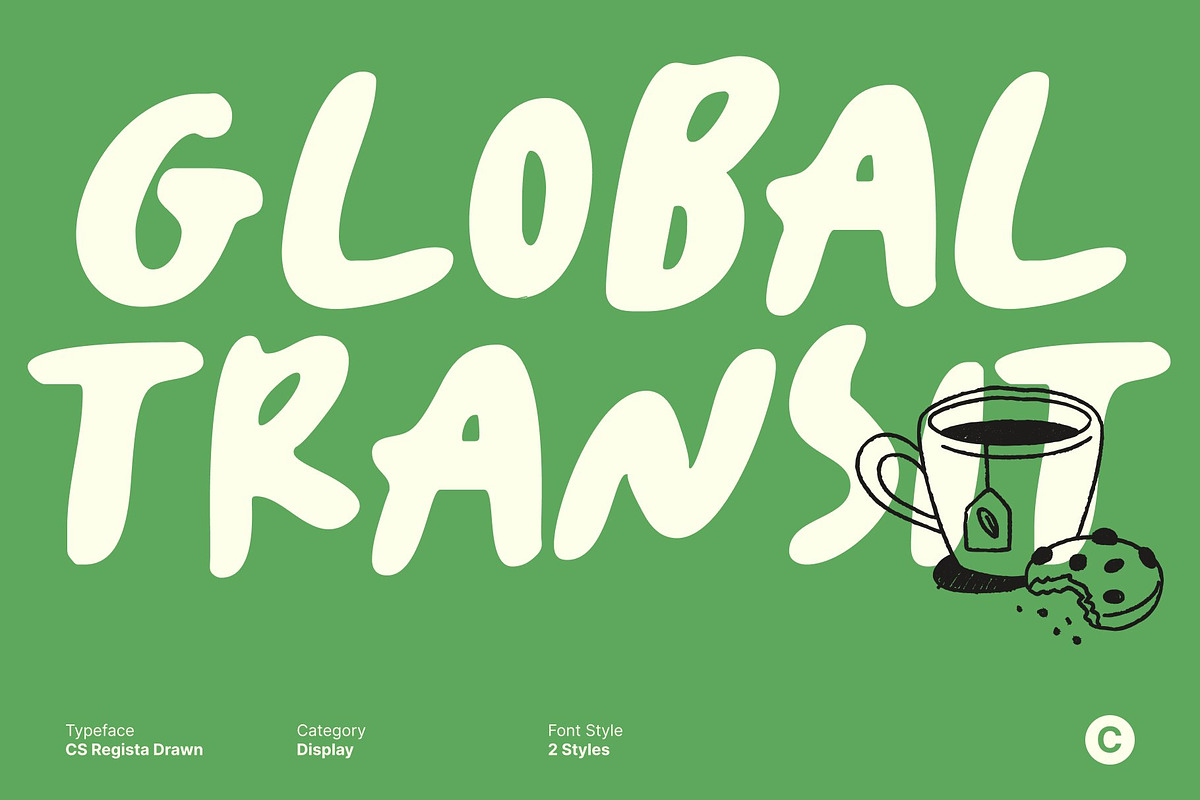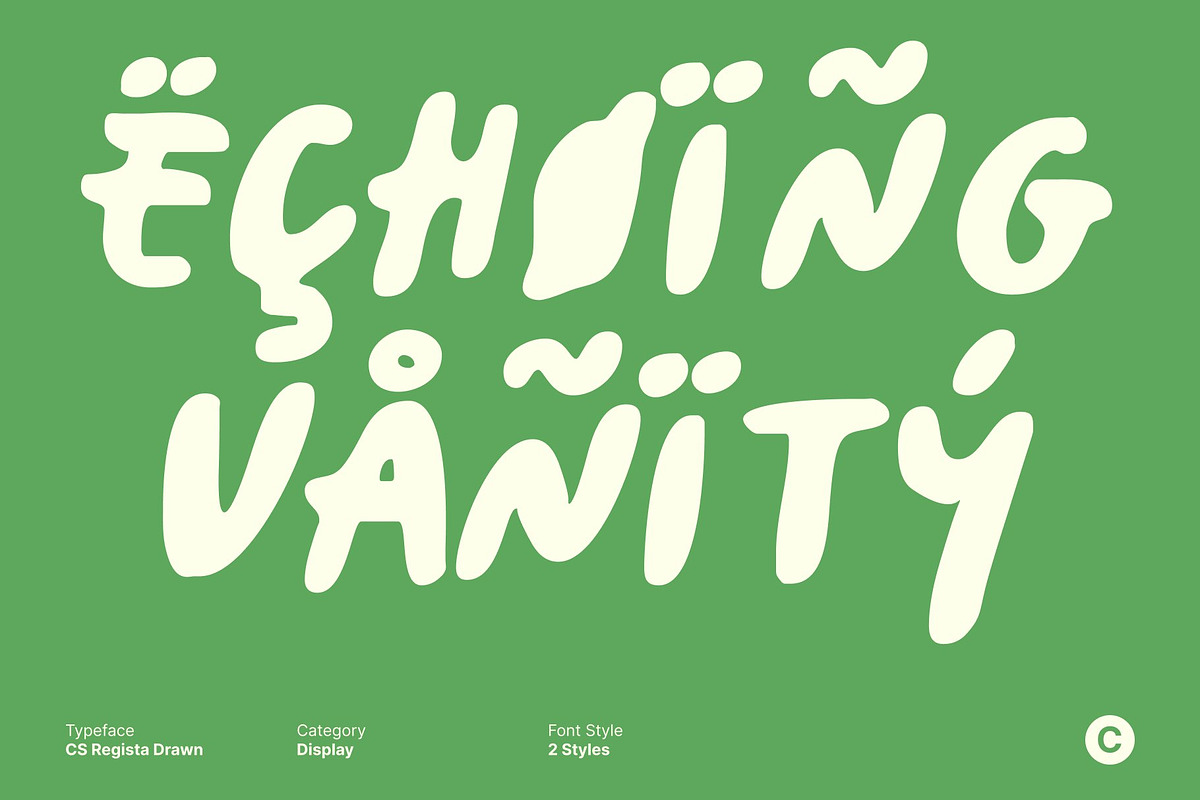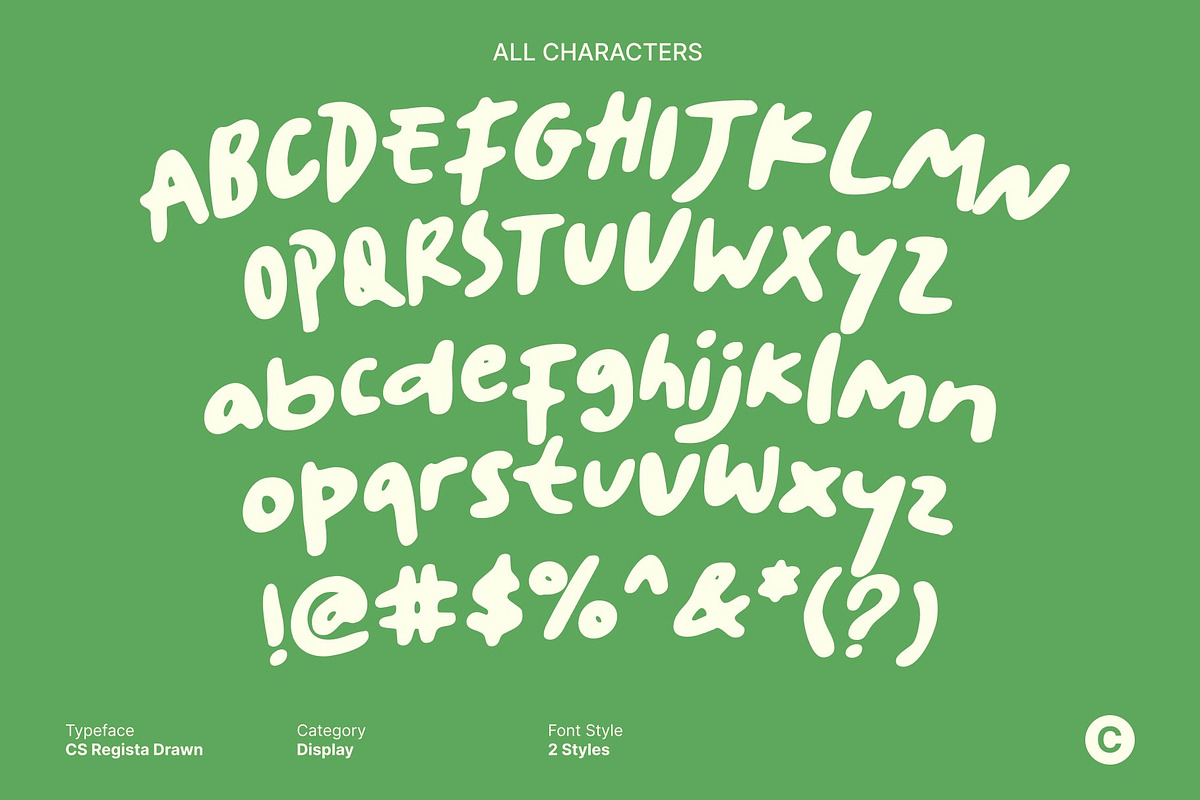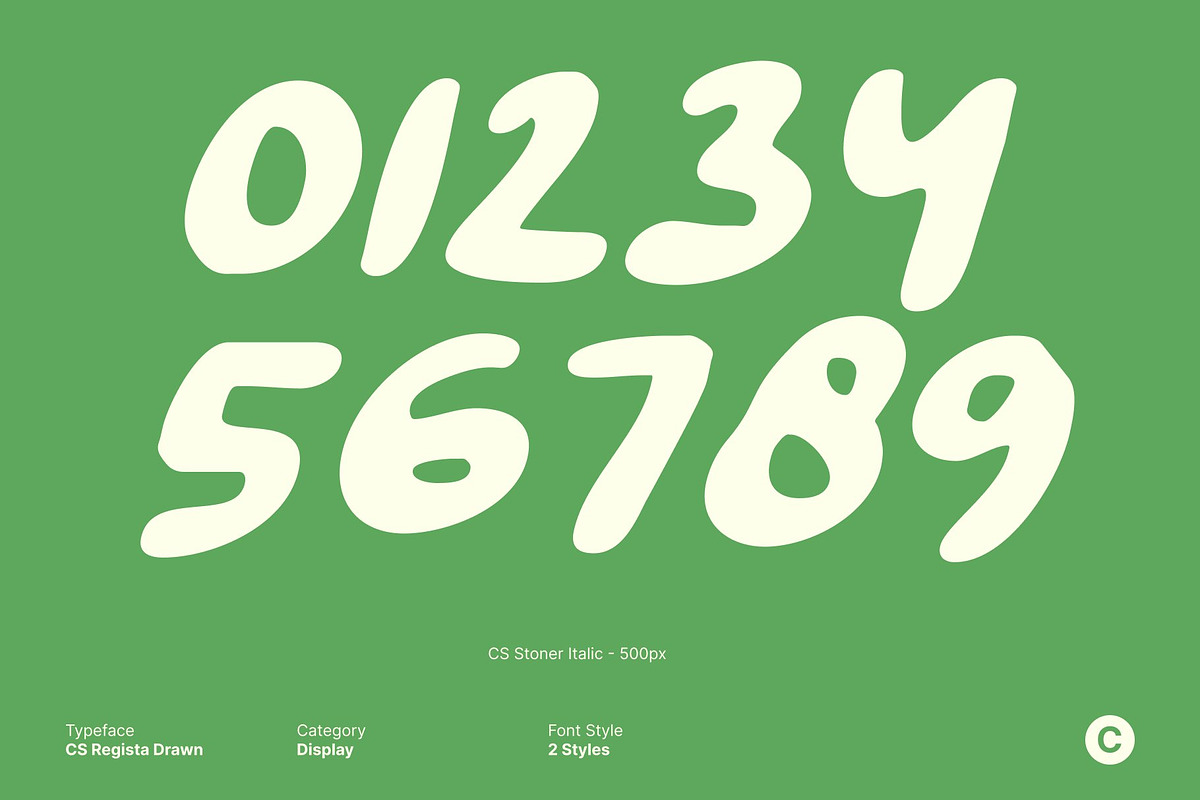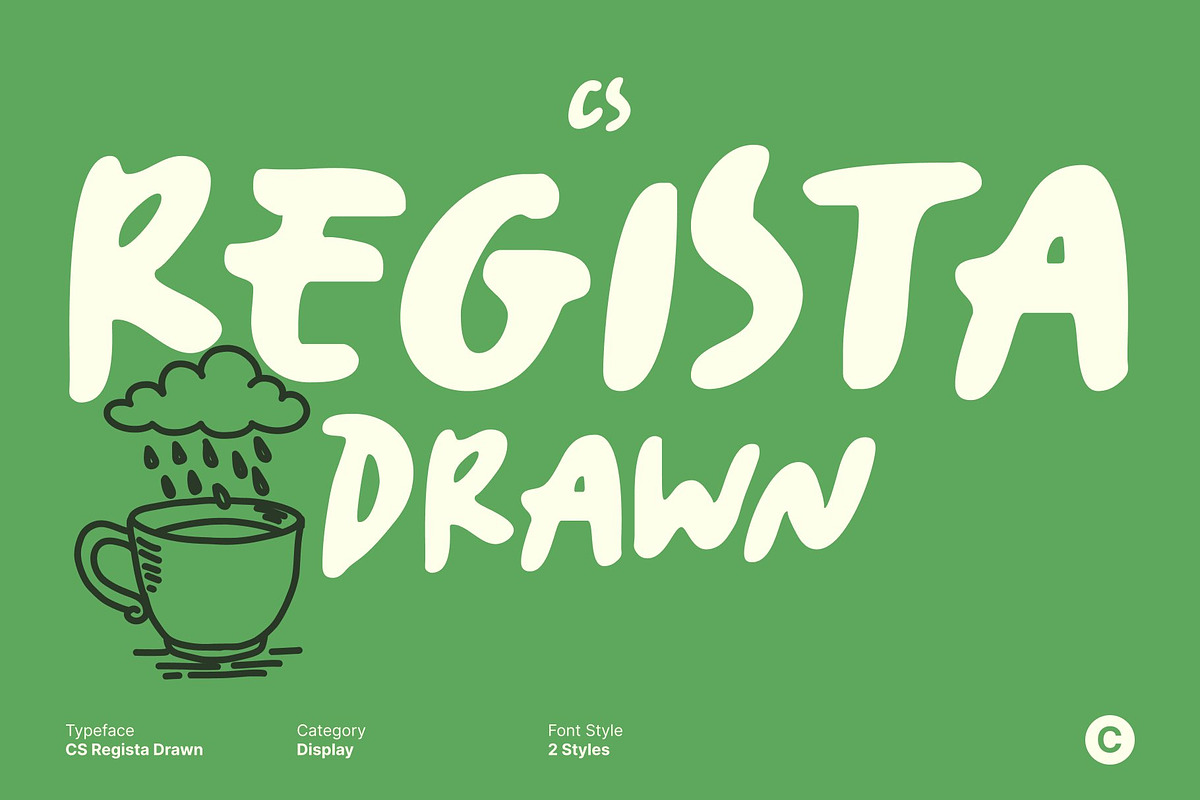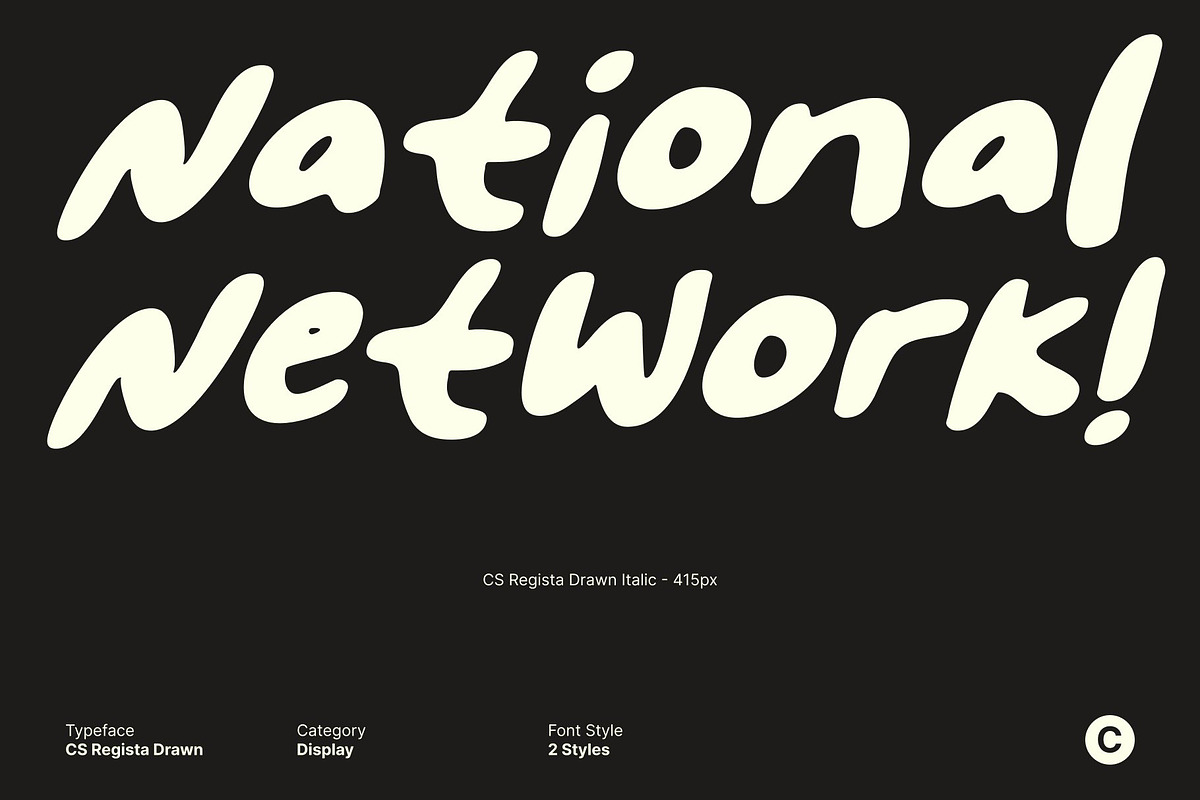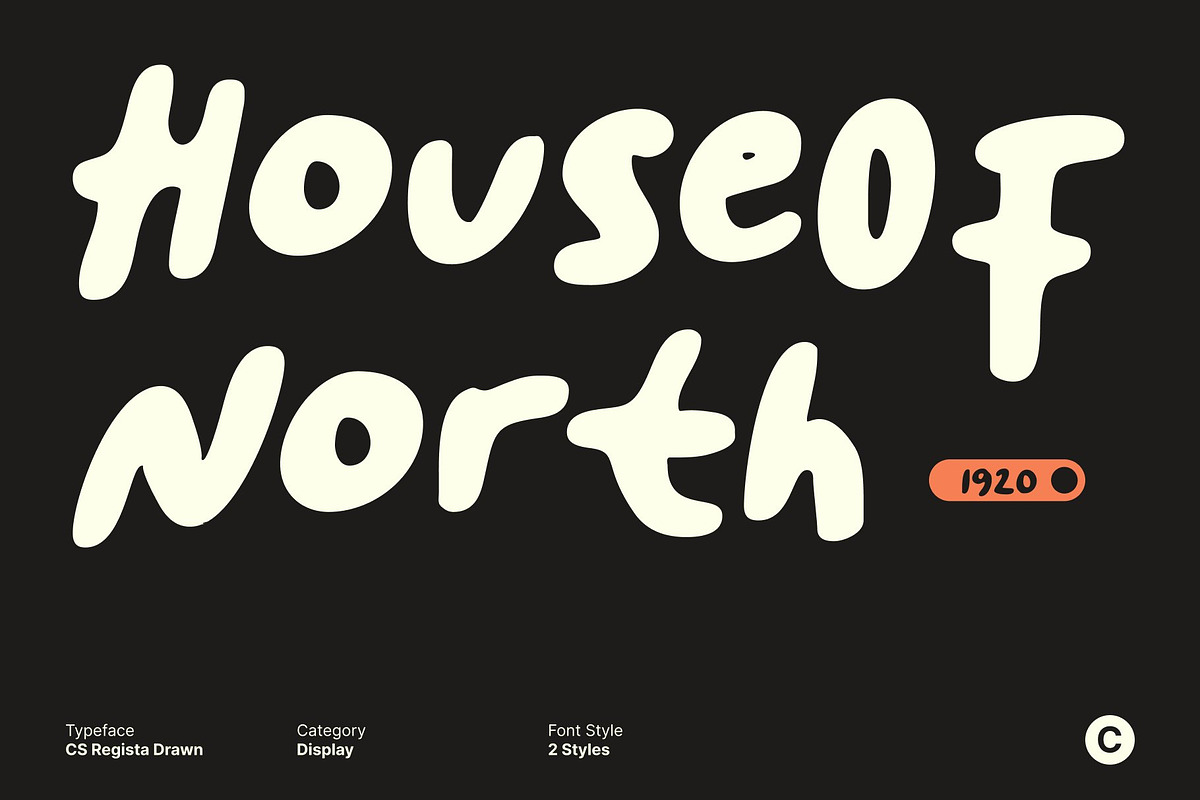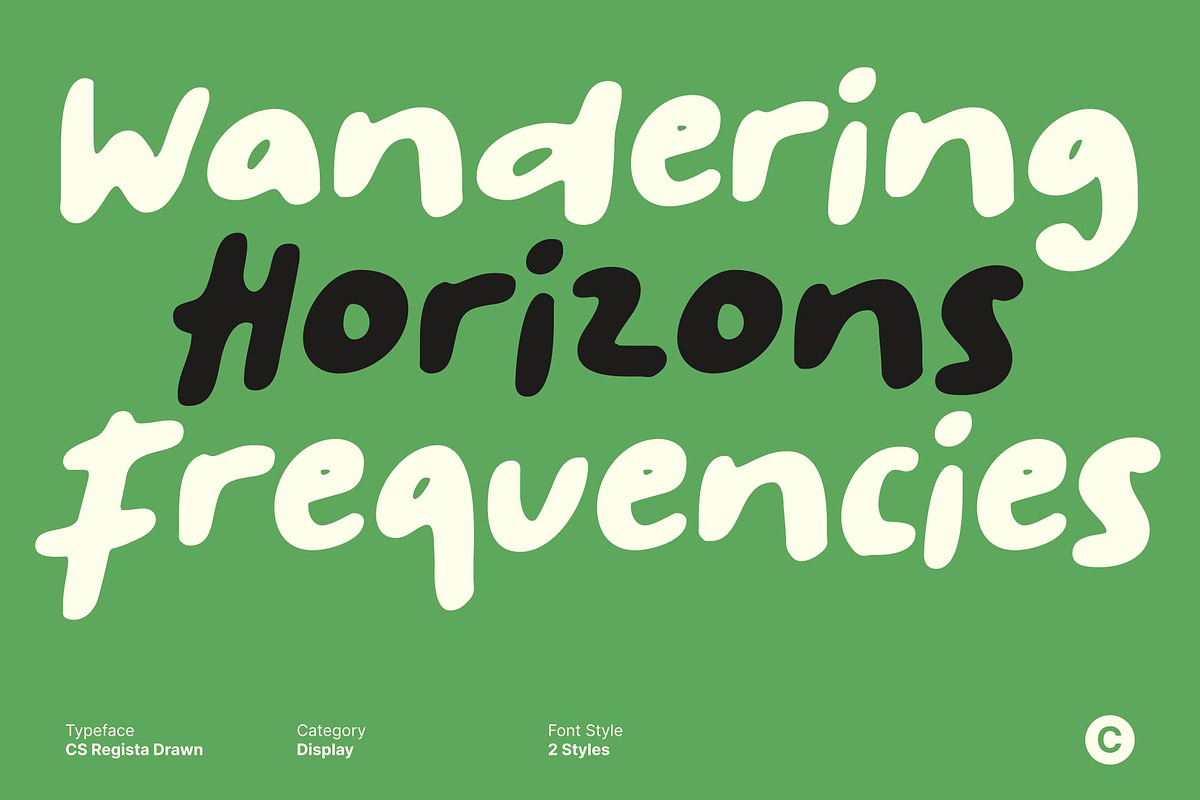
CS Regista Drawn
CS Regista Drawn – Natural Marker Font with Handwritten Charm
Clean Sans Serif Structure with Hand-Drawn Marker Texture This is a natural marker font that blends polished sans serif construction with expressive handwritten character. Its clean foundations ensure clarity and readability, while the subtle drawn texture adds an authentic, handcrafted feel. This balance creates a typeface that feels professional yet personal.
Organic Strokes for Warm, Expressive Typography Each letter features soft curves, organic marker strokes, and slight irregularities that enhance its natural flow. These handwritten details introduce warmth and spontaneity, making text feel approachable, lively, and visually engaging without losing refinement or structure.
Versatile Marker Style for Creative Flexibility Designed to adapt across a wide range of creative needs, this font performs beautifully in headlines, logos, editorials, and digital content. Its bold marker influence delivers personality and impact, while its clear sans serif base keeps designs neat and legible.
Perfect for Branding, Editorial, and Digital Design This font excels in branding, editorial layouts, posters, and modern digital visuals. Whether used for magazines, social media graphics, or expressive brand identities, it brings a handcrafted, natural energy that elevates every composition with charm and confidence.